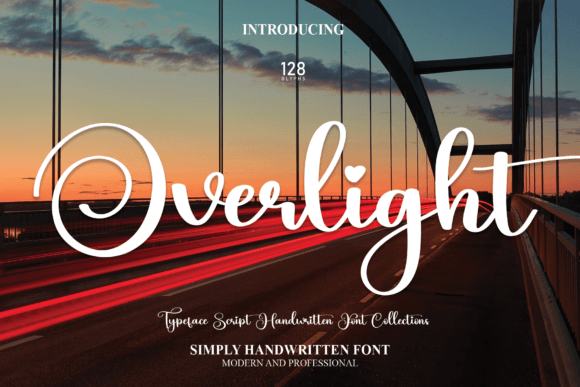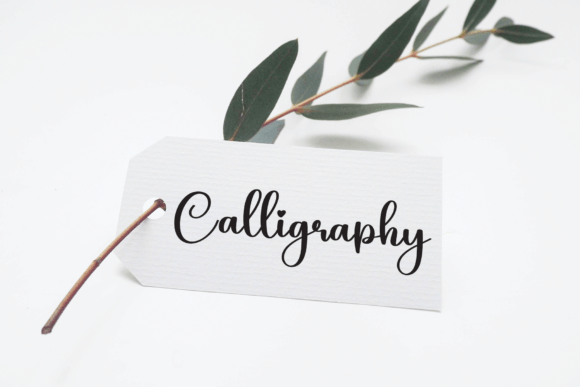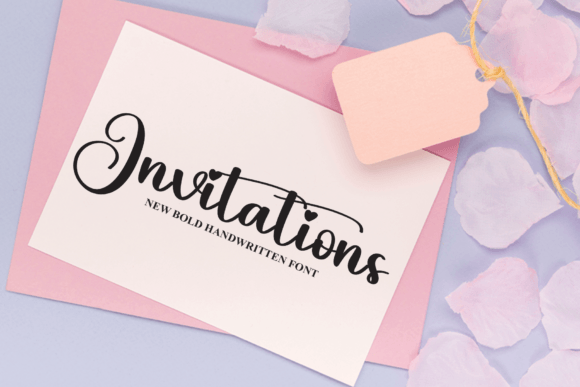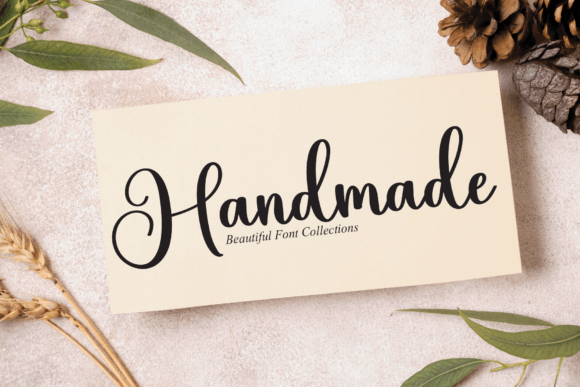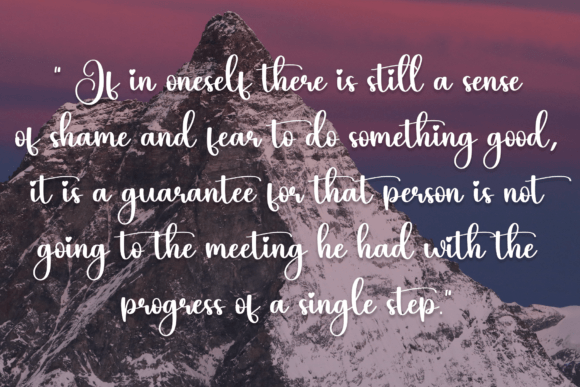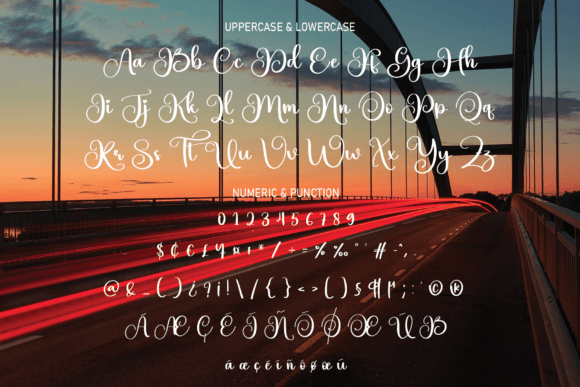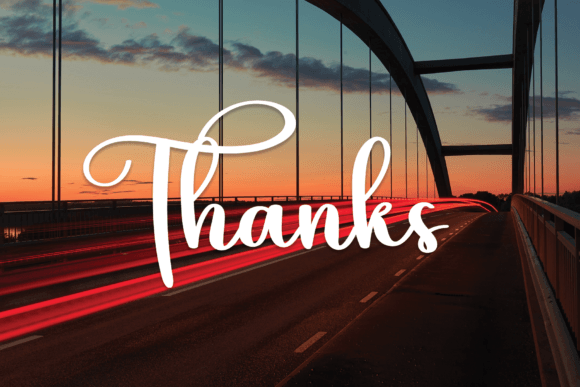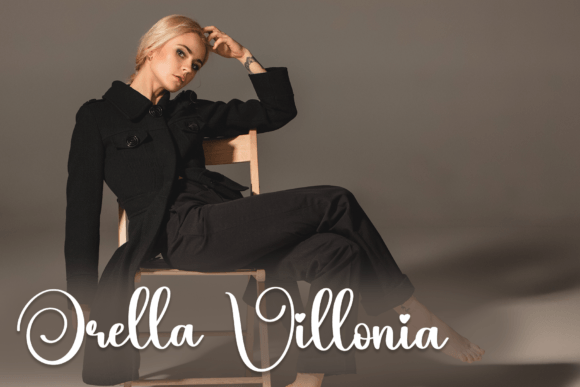
Overlight Font
About Overlight Font
Overlight is a magical handwritten font meticulously crafted to infuse a touch of elegance into your designs. Whether you’re in search of fonts for Instagram or calligraphy scripts for DIY projects, Overlight transforms any creative idea into a genuine work of art.
The magical quality of Overlight adds a whimsical and enchanting vibe to your text, making it perfect for a wide range of design applications. Whether you’re creating social media posts, crafting DIY projects, or working on any creative endeavor, Overlight brings an element of magic to your typography.
The handwritten style of Overlight adds a personal and authentic feel to your text, enhancing its visual appeal. The fluid strokes and carefully designed characters contribute to the overall elegance of the font, making it a standout choice for projects that require a touch of sophistication.
Overlight is versatile and adaptable to various design contexts. Whether you’re creating Instagram posts, calligraphy-inspired designs, or other artistic projects, the font elevates the visual impact, turning each creation into a piece of art.
In summary, Overlight is more than just a font; it’s a design enchantment that adds a magical and elegant touch to your creative projects. Whether you’re enhancing your Instagram aesthetics or embarking on DIY endeavors, Overlight transforms your ideas into true pieces of art with its captivating and sophisticated handwritten style.